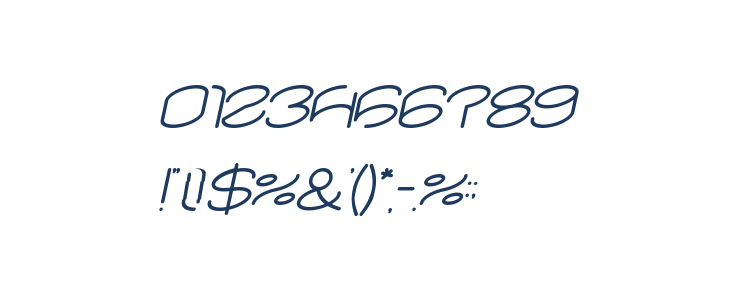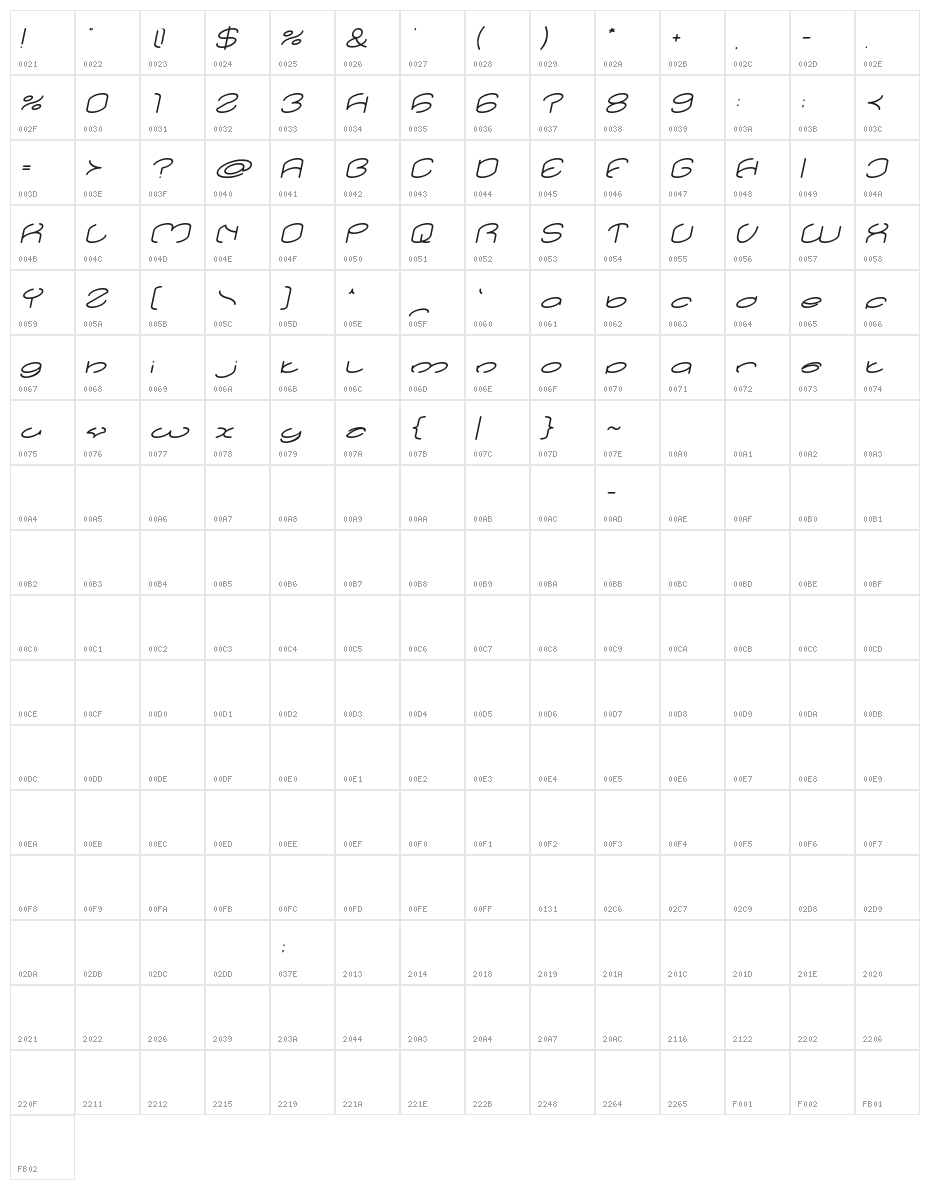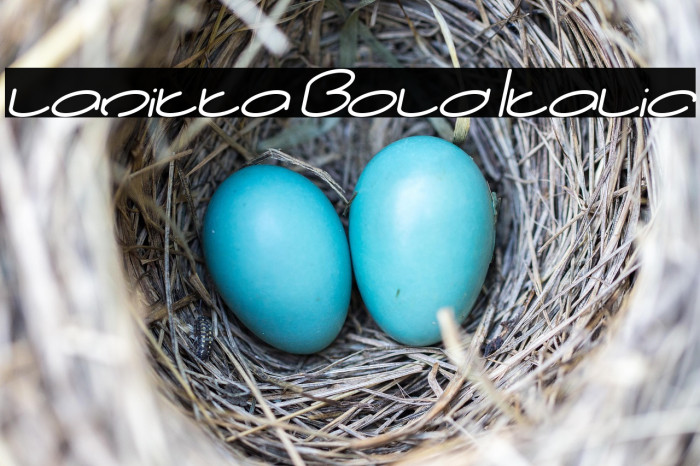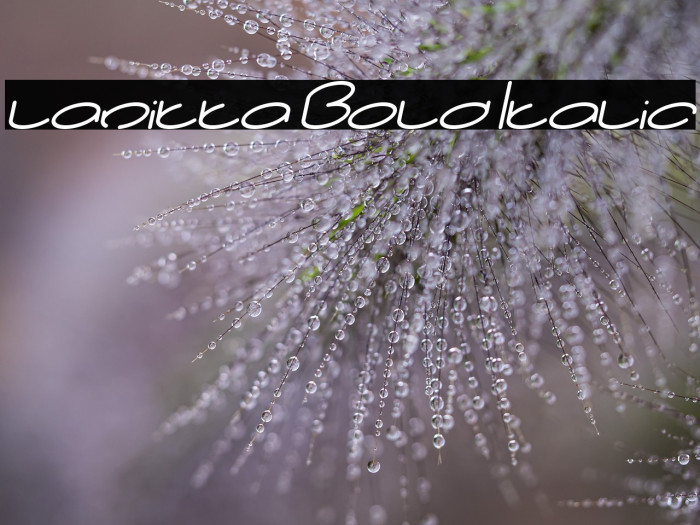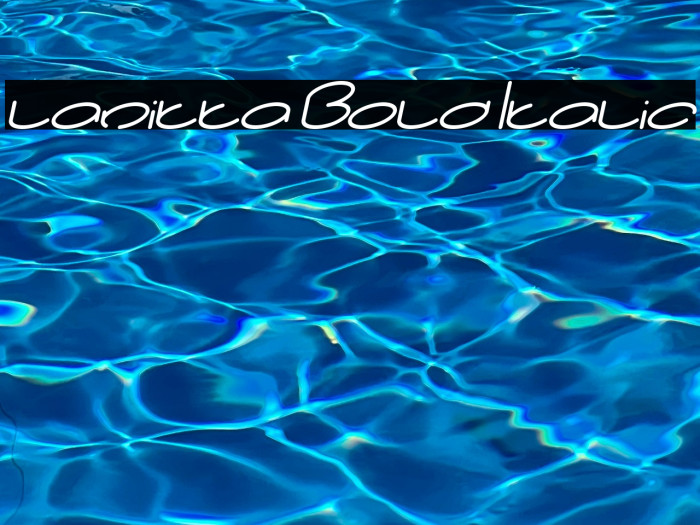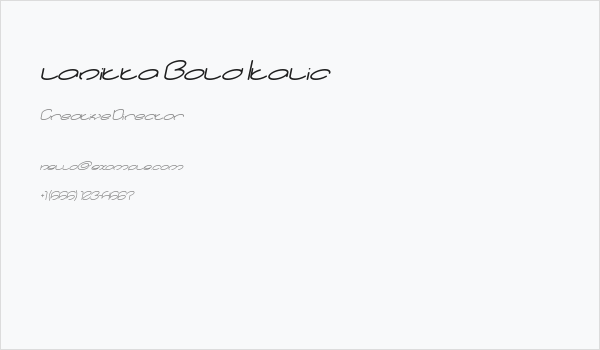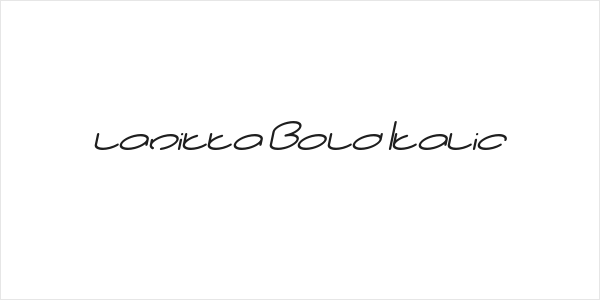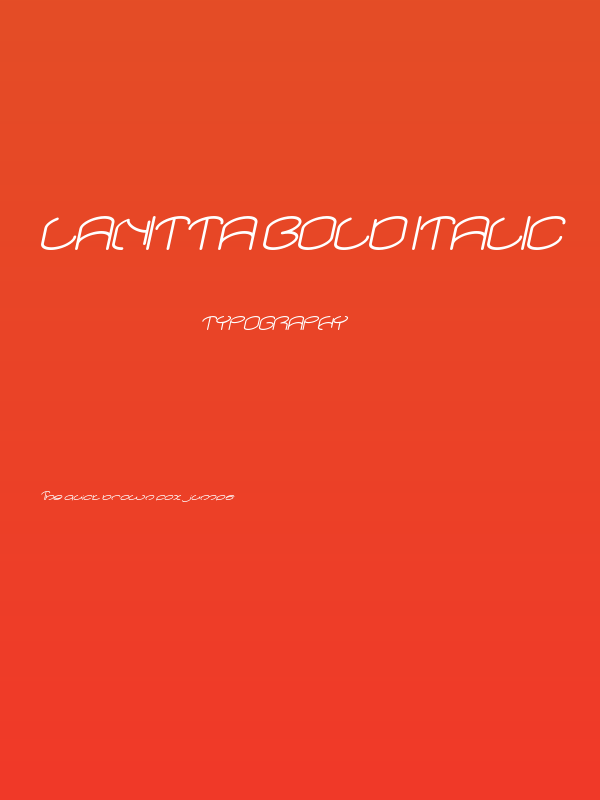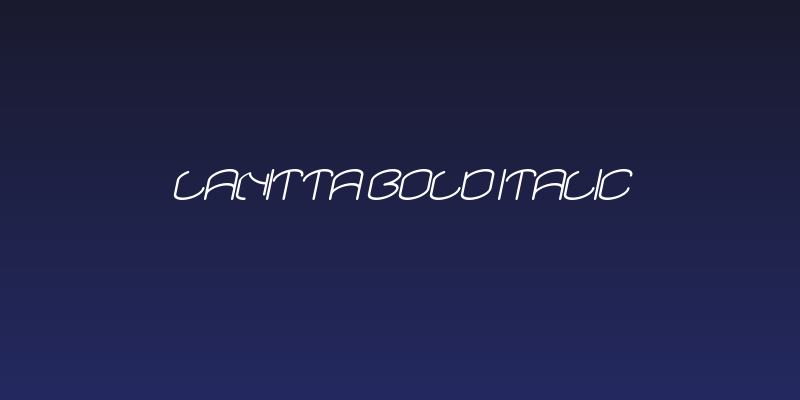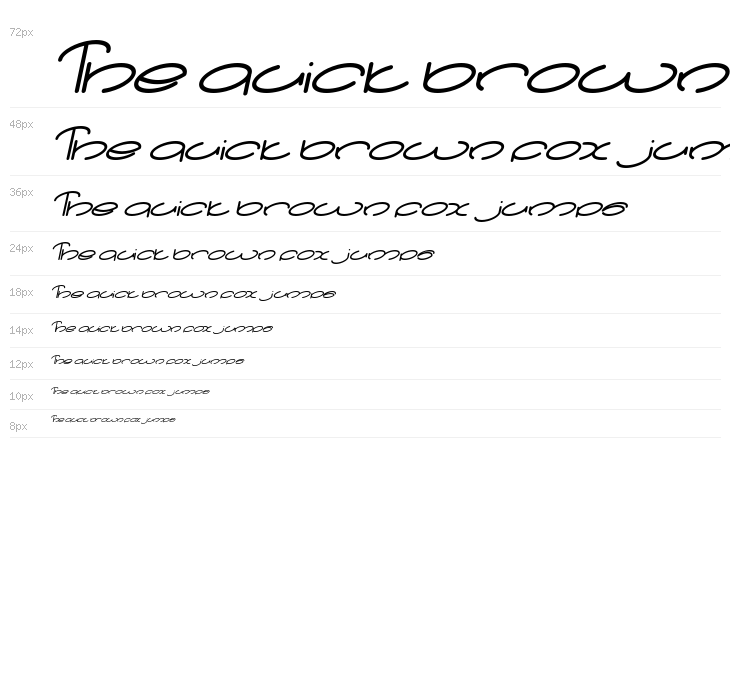
lanitta Bold Italic Font
lanitta Bold Italic Description
This font features a dynamic and flowing style, characterized by its bold and italicized form. The letters are interconnected with smooth curves and a slight slant, giving it a sense of movement and elegance. The uppercase and lowercase letters maintain a consistent style, with rounded edges and a playful yet sophisticated appearance. The numerals and special characters are designed to match the overall aesthetic, ensuring a cohesive look across all text elements. This font exudes a modern and artistic vibe, making it suitable for creative projects.